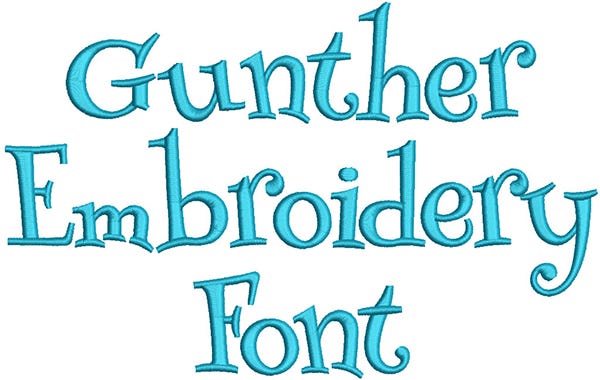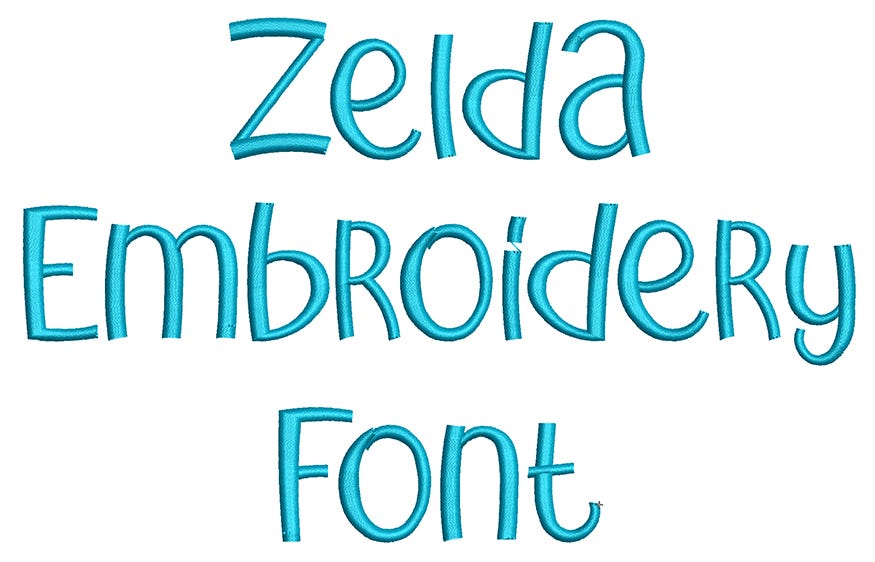
Handmade Satin Stich Embroidery Font by Oma's Place
This font was entirely digitized manually to ensure perfect start and end points for each letter, with every character starting on the left and ending on the right. Despite its small size, the font is very clear and readable, making it ideal for personalizing projects, quilt labels, and anywhere a smaller, legible font is needed.